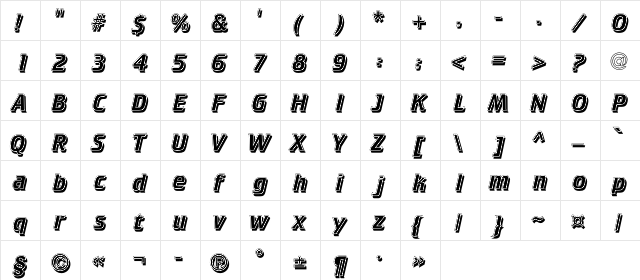
CricketInlineShadowC Regular
Design Context for CricketInlineShadowC Typeface
CricketInlineShadowC brings ornamental detail and strong personality to headlines and identities, where visual impact matters more than quiet functionality.
Font Pairing: Pair with a clean neutral sans-serif for body copy to let CricketInlineShadowC's character lead without overwhelming the composition.
Pro Tip: Treat CricketInlineShadowC as the centrepiece of your typographic hierarchy. One strong heading set in a decorative face can carry an entire layout.